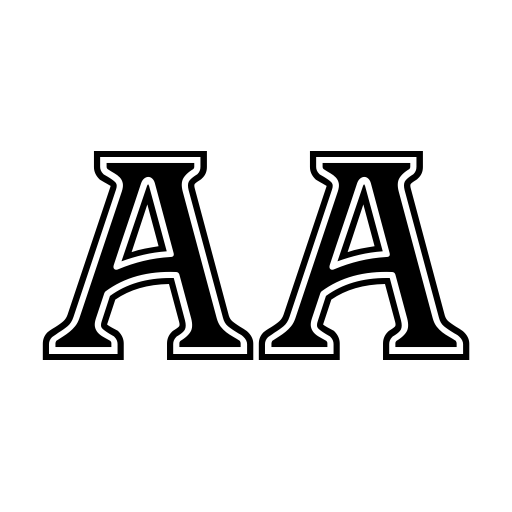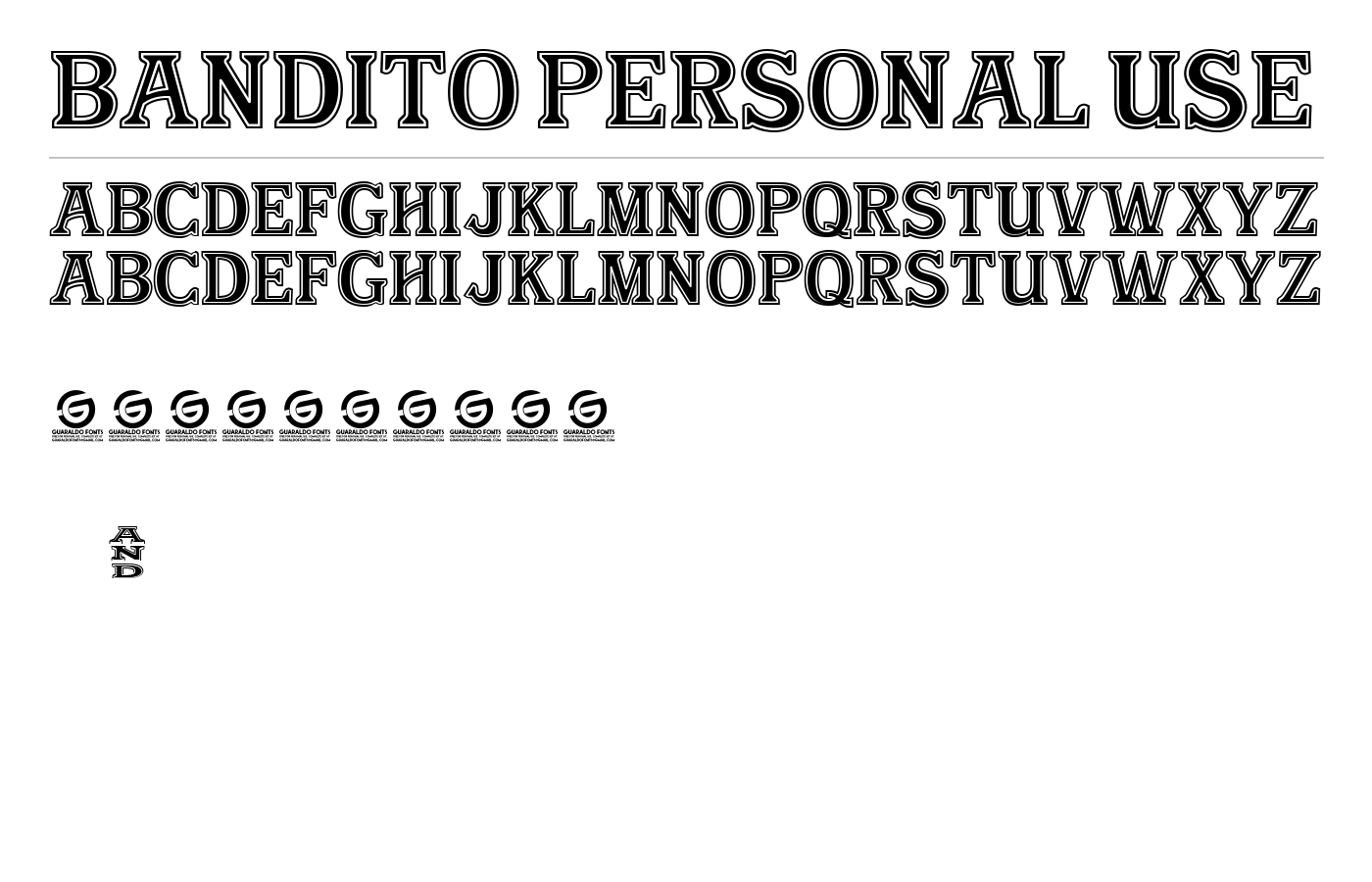
Bandito Personal Use is a bold, decorative serif font with a strong vintage and Western-inspired vibe. Its thick, outlined letters with bracketed serifs and condensed proportions make it ideal for eye-catching headlines, posters, and branding that need a rugged, nostalgic character. This font works best where a bold, classic yet playful statement is desired, such as in logos or packaging for adventurous and retro-themed designs.
About Bandito Personal Use Font
| Designer | Mathias Guaraldo |